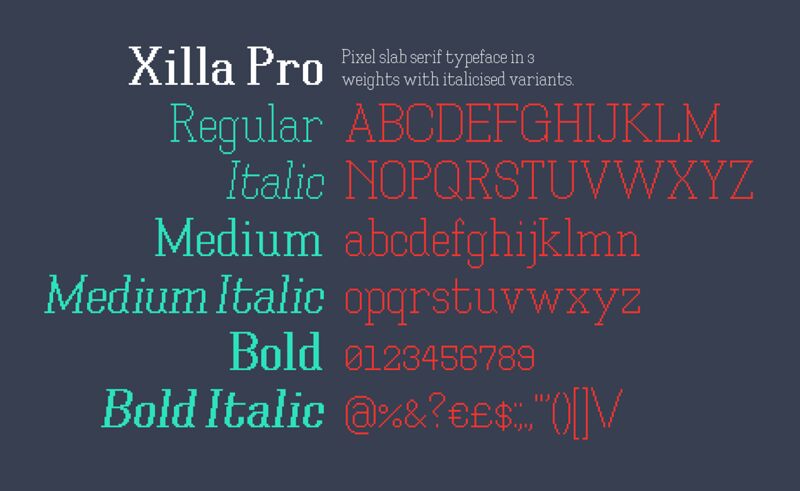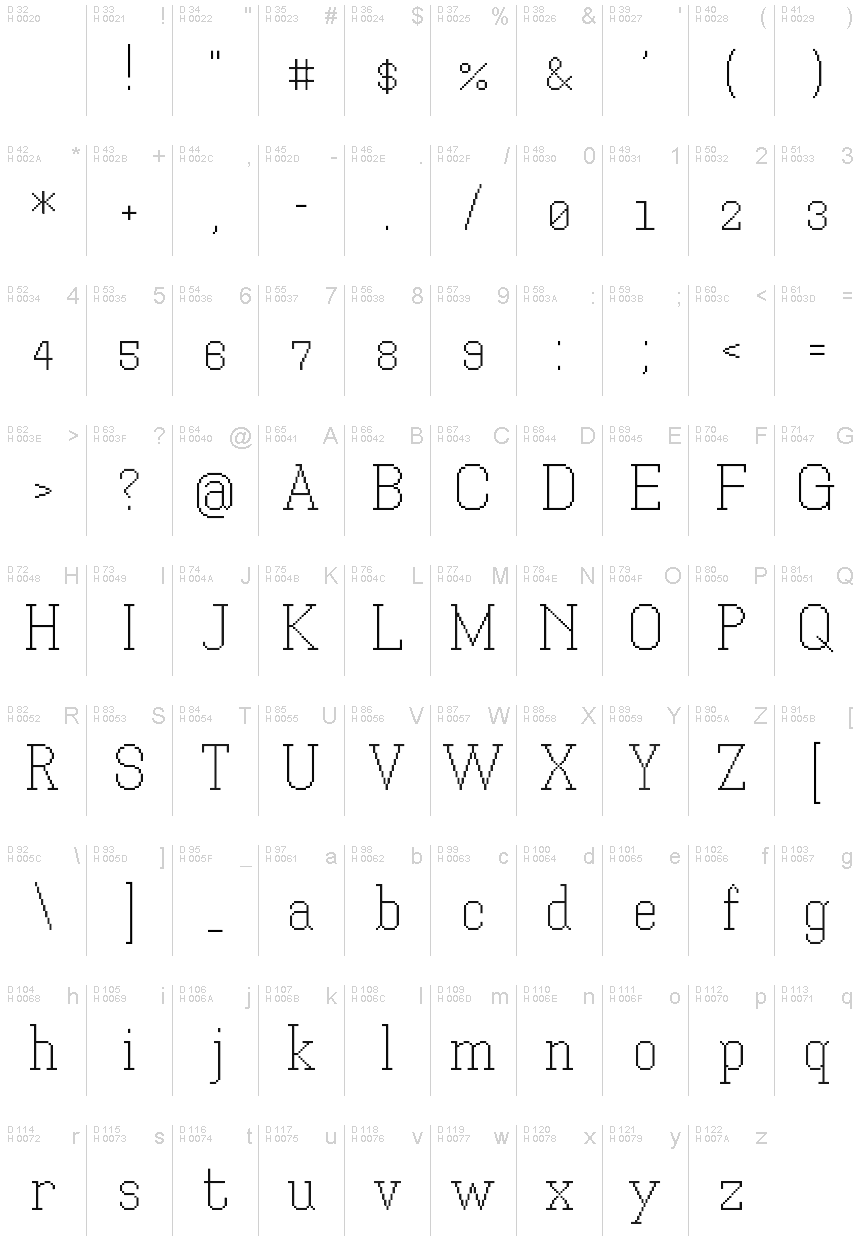
Xilla Pro
Xilla Pro with medium, bold and italic variants!
Pixel slab serif typeface. Inspired loosely by Zilla, theGoogleopen source font.
Xill Pro is the second iteration of Xilla, created at twicethe scale.